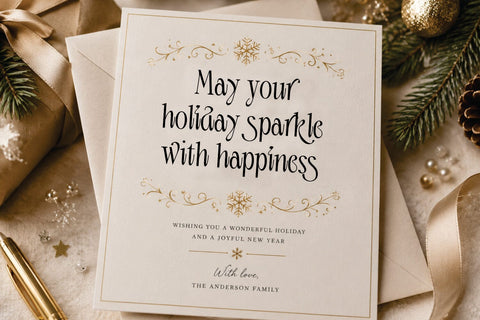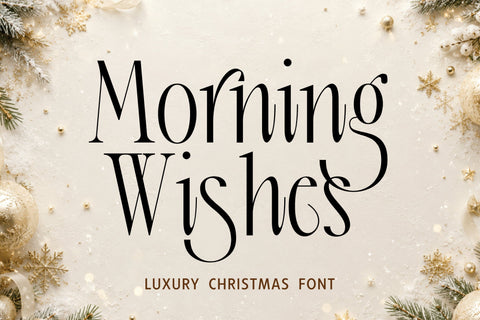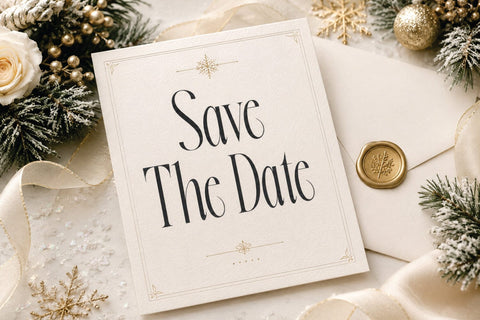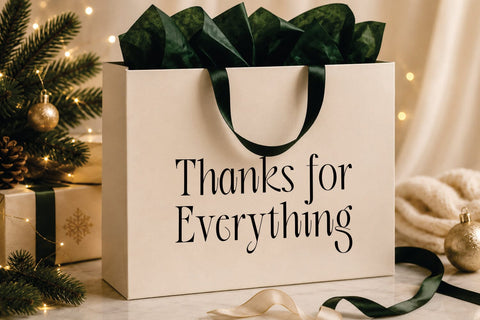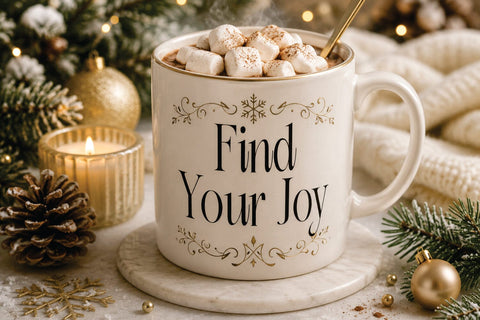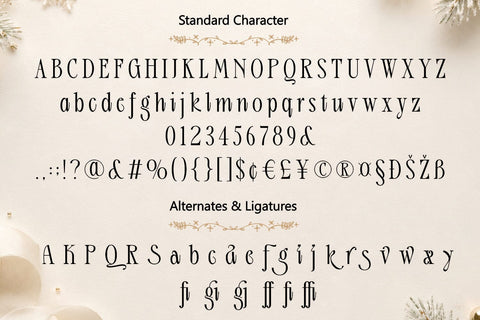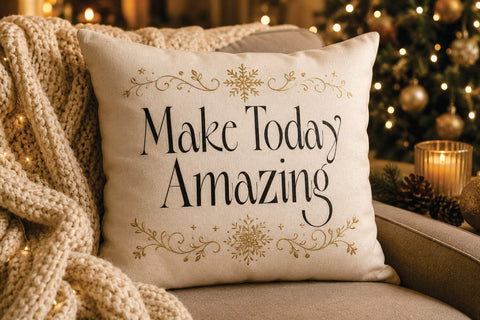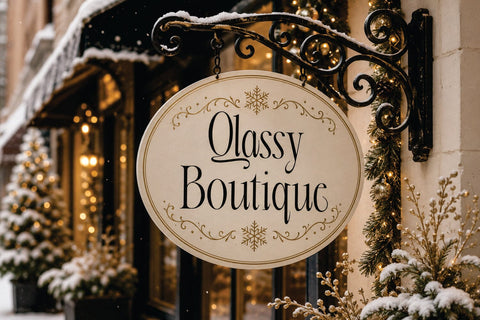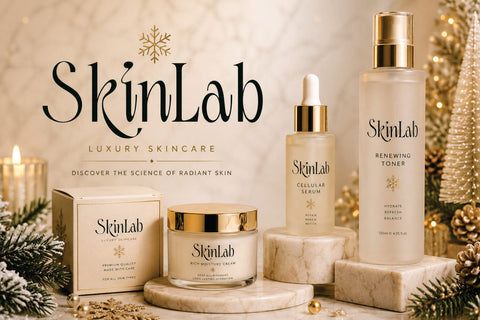
Christmas Font – Morning Wishes
Morning Wishes – Christmas Font
**Morning Wishes** is a charming Christmas font designed to capture the warmth, happiness, and magical spirit of the holiday season. Featuring cheerful letterforms with festive character, this font creates a cozy and joyful atmosphere that brings every Christmas-inspired design to life.
Crafted with a playful and heartwarming style, Morning Wishes blends festive elegance with excellent readability. Every letter is carefully designed to deliver a delightful balance between decorative charm and clean typography, making it suitable for both classic and modern holiday creations.
Inspired by peaceful Christmas mornings, sparkling snow, beautifully wrapped gifts, and cozy family gatherings, Morning Wishes reflects the excitement and warmth of the season. Its unique personality adds a magical touch to every word, helping your designs feel welcoming, memorable, and full of holiday spirit.
Morning Wishes is perfect for a wide variety of seasonal projects, including Christmas cards, holiday invitations, gift tags, festive packaging, posters, social media graphics, branding, and promotional materials. Whether you’re creating designs for personal celebrations or holiday campaigns, this font adds joyful character and timeless festive appeal.
The font also works beautifully for craft and DIY creations such as Cricut projects, SVG designs, stickers, ornaments, scrapbooking, handmade decorations, and custom merchandise. Whether used in print or digital media, Morning Wishes delivers warmth, creativity, and Christmas magic to every project.
**Festive Christmas Style**
Cheerful letterforms inspired by the warmth and magic of Christmas.
**Warm & Joyful Design**
Creates cozy, inviting, and memorable holiday typography.
**Clean & Readable**
Balanced characters with excellent clarity for display applications.
**Versatile Holiday Font**
Perfect for seasonal branding, decorations, and festive creative projects.
**Craft-Friendly Design**
Ideal for Cricut, SVG, DIY crafts, and handmade creations.
**Multilingual Support**
Extended character set for international creative use.
• Christmas & Holiday Designs
• Winter-Themed Projects
• Greeting Cards & Invitations
• Gift Tags & Labels
• Holiday Packaging
• Seasonal Branding
• Posters & Promotions
• Social Media Graphics
• Christmas Decorations
• Cricut & DIY Craft Projects
• Stickers & Scrapbooking
• Standard & Multilingual Glyphs
## *Celebrate Every Christmas Morning*
If you’re looking for a font that captures the warmth, joy, and magical feeling of Christmas morning, **Morning Wishes** is the perfect choice. Its festive personality and charming style help create designs that feel cozy, heartwarming, and unforgettable.